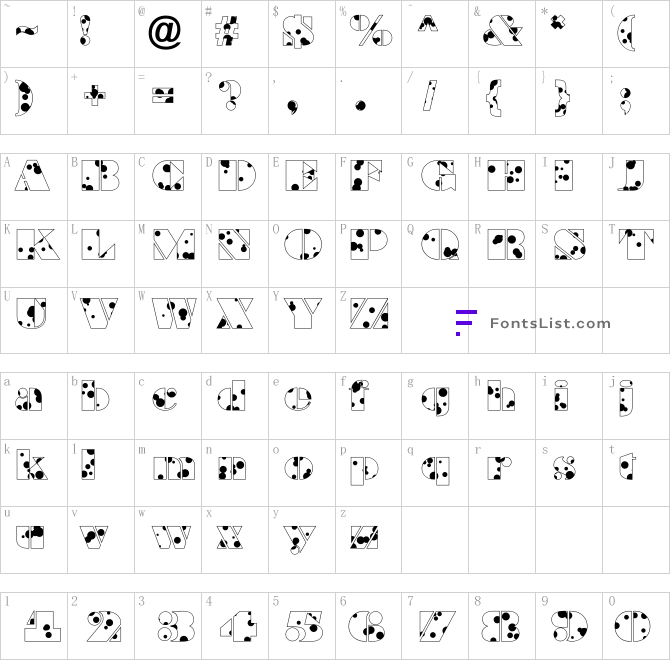
- Font Name:a_BraggaDr
a_BraggaDr.ttf is a very beautiful artistic font, a_BraggaDr.ttf is widely used in the design and printing of various books and pictures,a_BraggaDr.ttf has a strong visual impact,a_BraggaDr.ttf is a commonly used font in newspapers, magazines and books, and is used in posters, e-commerce Poster design, store design, logo design, font design and other fields.a_BraggaDr.